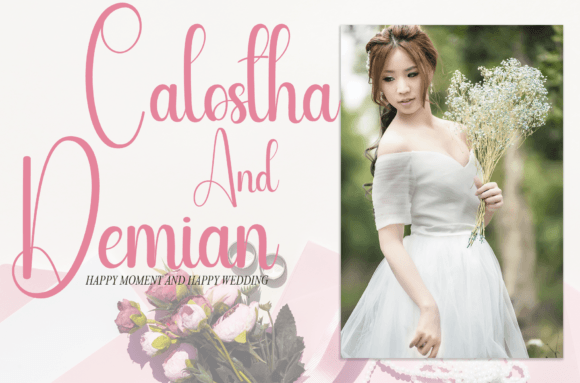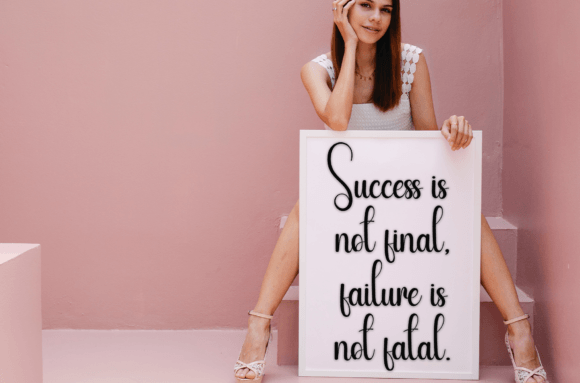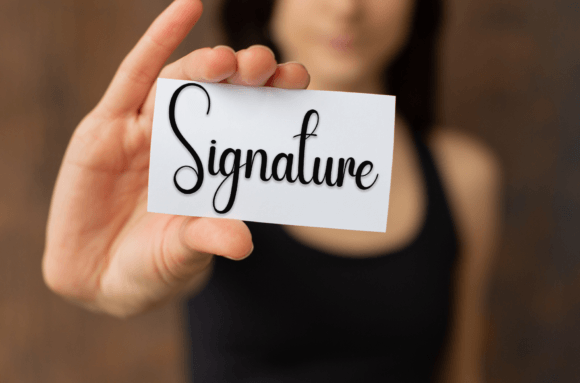
Introduction to Mister Font
Have you ever been stuck on a creative project, frantically searching for the perfect font to bring it to life? I know I have. It’s that moment of frustration, when you’re about to give up, that you stumble upon the perfect design resource. For me, that moment came when I discovered the Mister Font – a sweet and friendly handwritten font that instantly added a fun touch to my project.
What makes Mister Font truly special is its high quality and versatility. With its fresh and neat design, it’s ideal for writing wedding invitations, cards, or any other creative project that needs a personal touch. Plus, the best part? It’s available for a free download, complete with a transparent background, making it a breeze to incorporate into your design.
Key Features of Mister Font
- High-resolution design resource with crisp and clear typography, ideal for creative projects that demand high quality.
- Unique, hand-crafted design with a transparent background, allowing for seamless integration with various backgrounds and color schemes.
- Perfect for graphic designers, digital artists, and anyone looking for a versatile and creative font to enhance their designs.
- Mister Font is designed to be highly customizable, allowing users to adjust font sizes, colors, and styles to suit their specific design needs.
Honest Review: Mister Font
I recently had the opportunity to work with Mister Font, a unique and versatile design resource. The first thing that caught my attention was its high quality and extensive character set, making it perfect for creative projects that require a lot of customization.
- What works well: ✨ The font’s transparent background allows for seamless integration with any design element, and its wide range of weights and styles provides endless possibilities for creative expression.
However, I did encounter some limitations while using Mister Font. ⚠️ The font’s kerning can be a bit off at times, requiring manual adjustments to ensure proper spacing. Additionally, the font’s compatibility with certain design software can be a bit finicky.
Overall, I was impressed with Mister Font’s potential and versatility. While it may require some extra tweaking, the benefits far outweigh the drawbacks. If you’re looking for a high-quality design resource that can elevate your creative projects, Mister Font is definitely worth considering.
Tips for Getting the Most Out of Mister Font
Use Mister Font with a transparent background for a sleek and modern design. Experiment with different font sizes and colors to add depth and interest to your project. Mister Font is a versatile design resource that can be used in a variety of creative projects.
Common Use Cases for Mister Font
Mister Font is a popular choice for creative projects such as logos, business cards, and social media graphics. It’s also a great option for presentations and reports. With its high-quality design and free download option, Mister Font is a must-have design resource for any creative project.